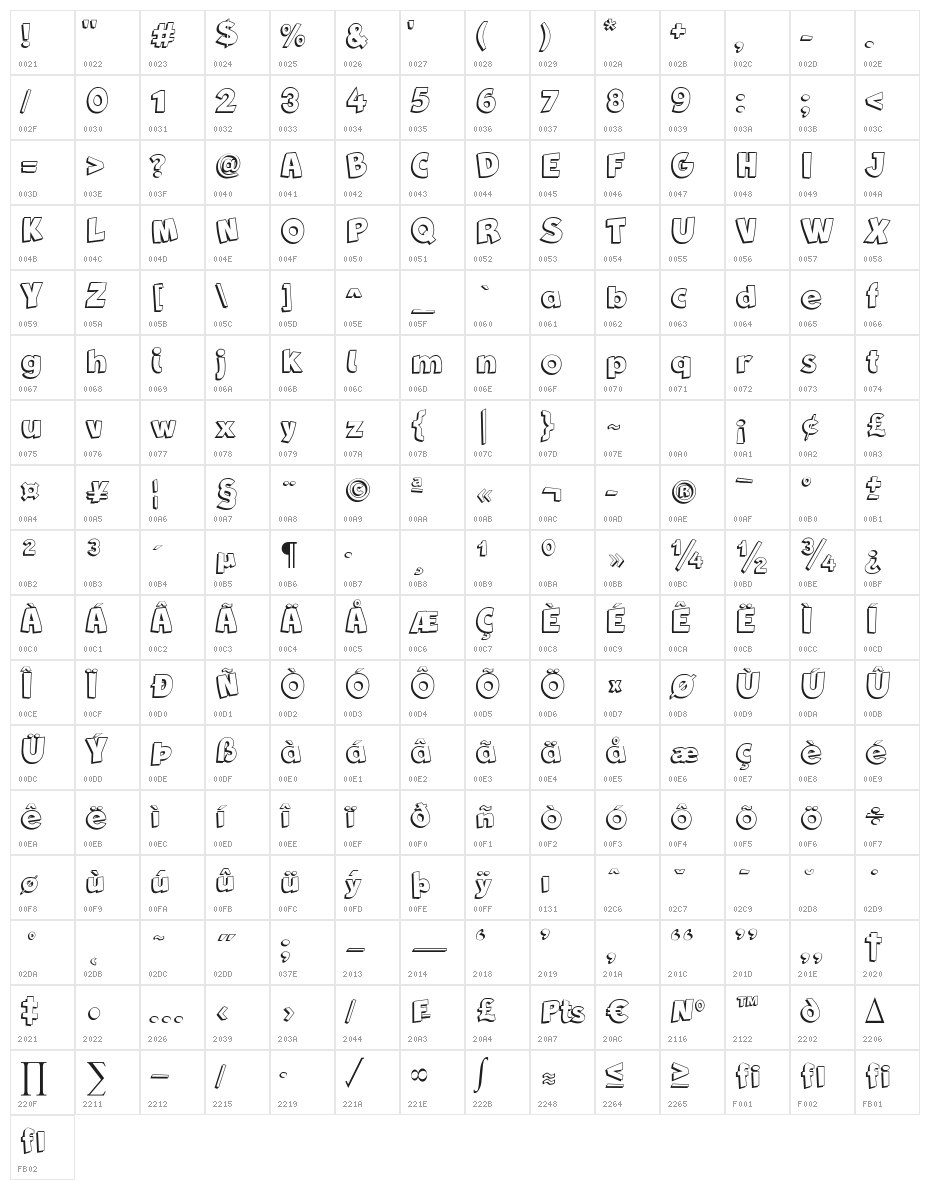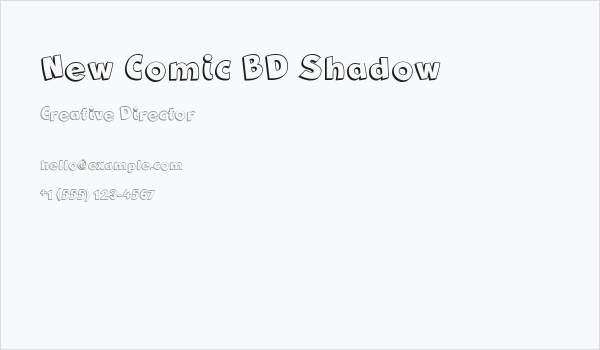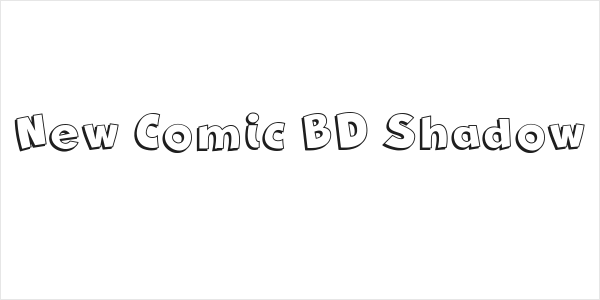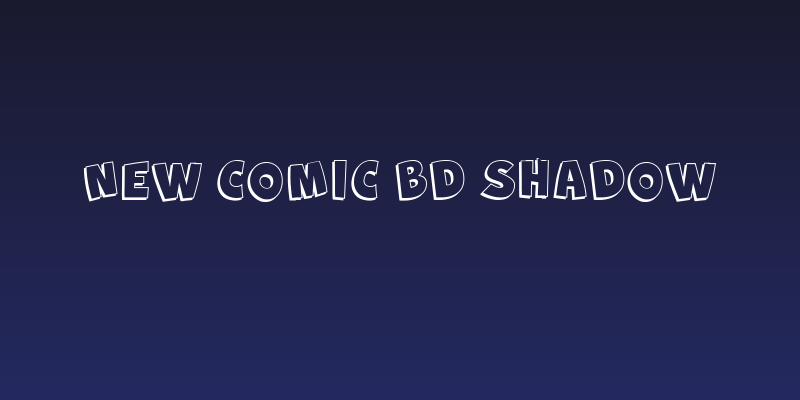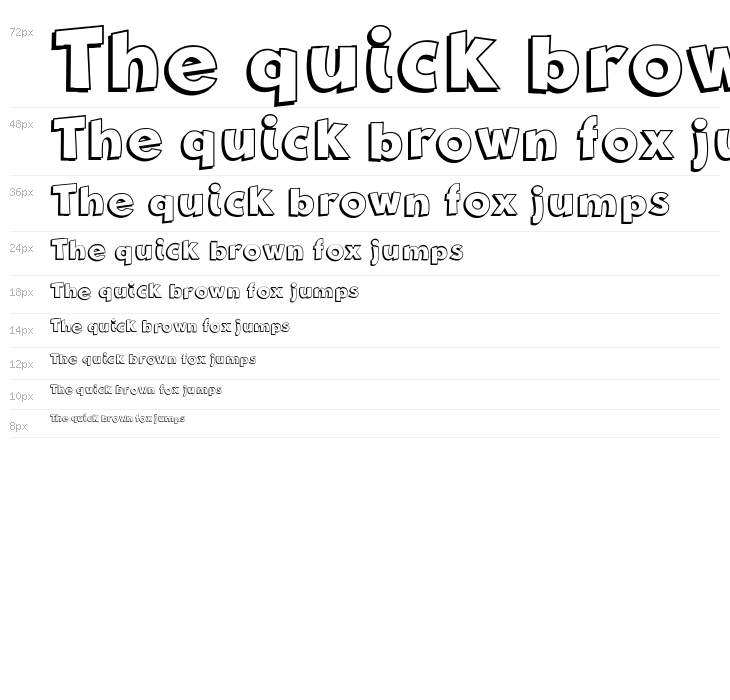
New Comic BD Shadow Font
New Comic BD Shadow Description
This playful and bold font features a comic-style design with a shadow effect that adds depth and dimension to each character. The letters are rounded and slightly irregular, giving them a hand-drawn appearance that is both fun and approachable. The uppercase and lowercase letters maintain a consistent style, while the numerals and special characters complement the overall aesthetic. The font's thick strokes and shadowing make it highly legible and eye-catching, suitable for a variety of creative projects.
| Overall Style | Playful, Comic |
| Proposed Projects | Ideal for comic books, children's books, playful branding, posters, and any project that requires a fun and engaging typeface. |